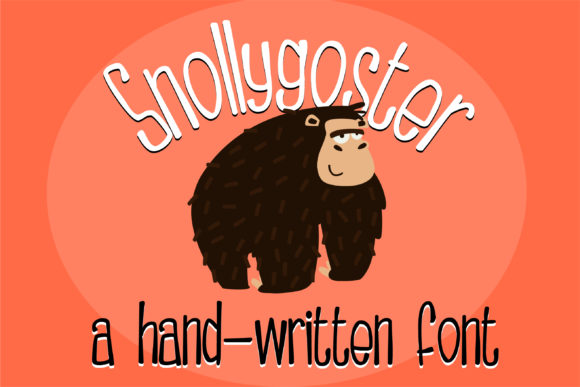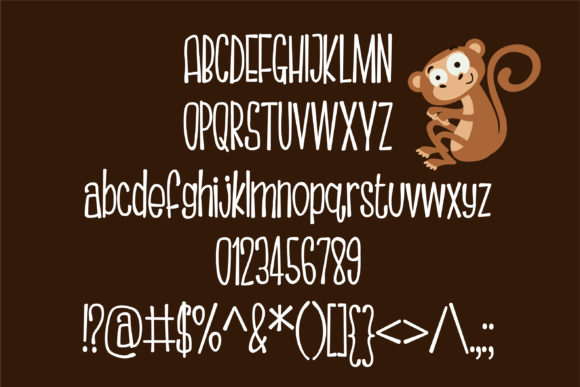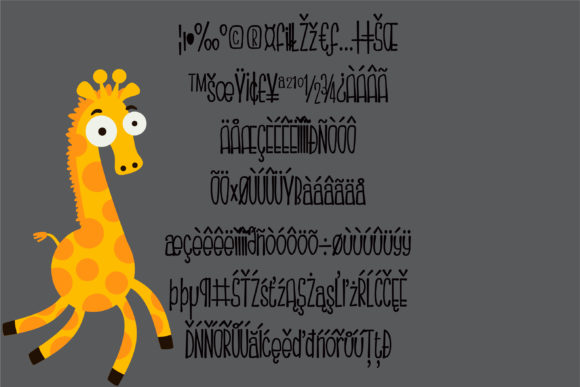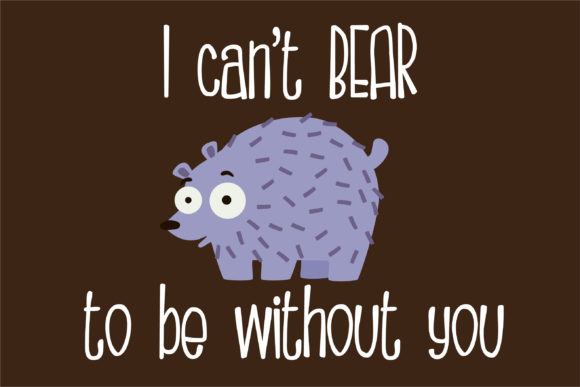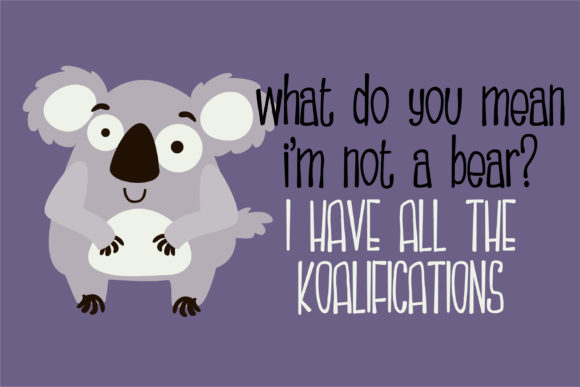
Snollygoster Font
About Snollygoster Font
Snollygoster is a fun and slightly whimsical handwritten font with a playful feel. It will add a lot of charm to any design idea!